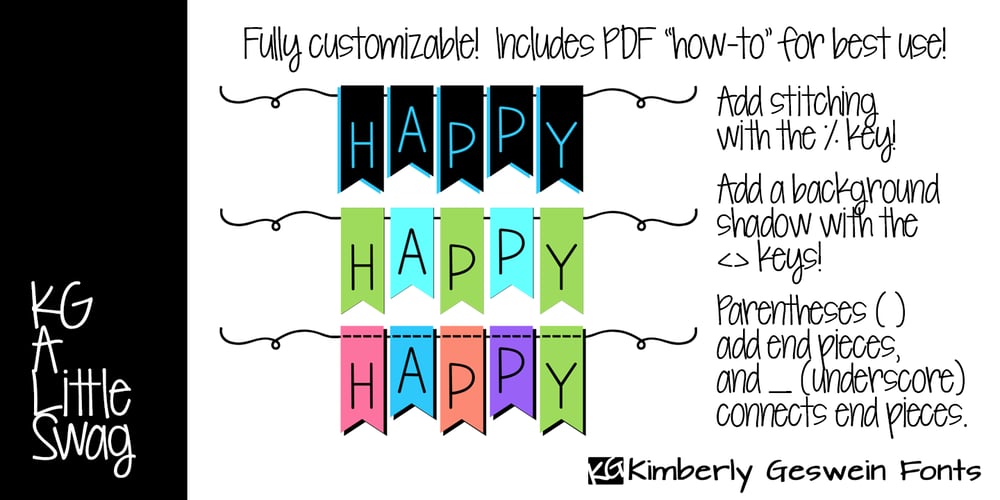
KG A Little Swag Font Family was designed by Kimberly Geswein and published by Kimberly Geswein. KG A Little Swag contains 1 styles and family package options. Cute bunting style lettering. Best when used with multiple layers to create a stacked, dimensional look. Use the parentheses to create end pieces and _ (underscore) to connect the end pieces.